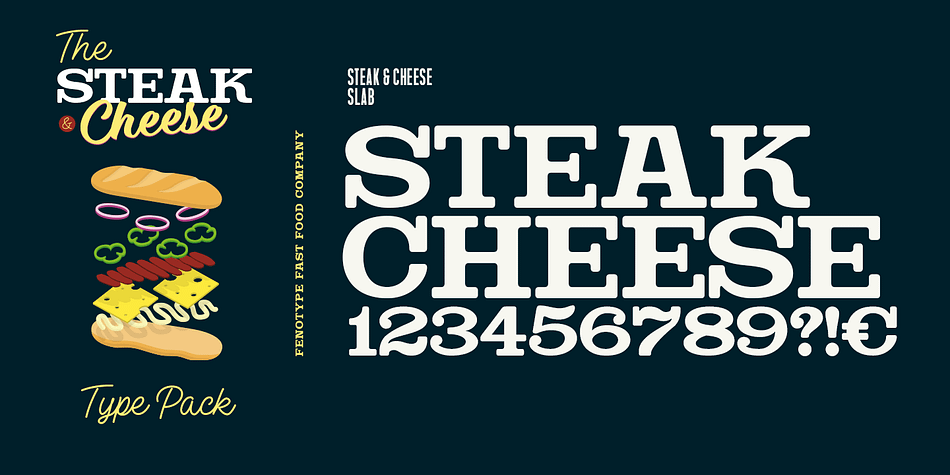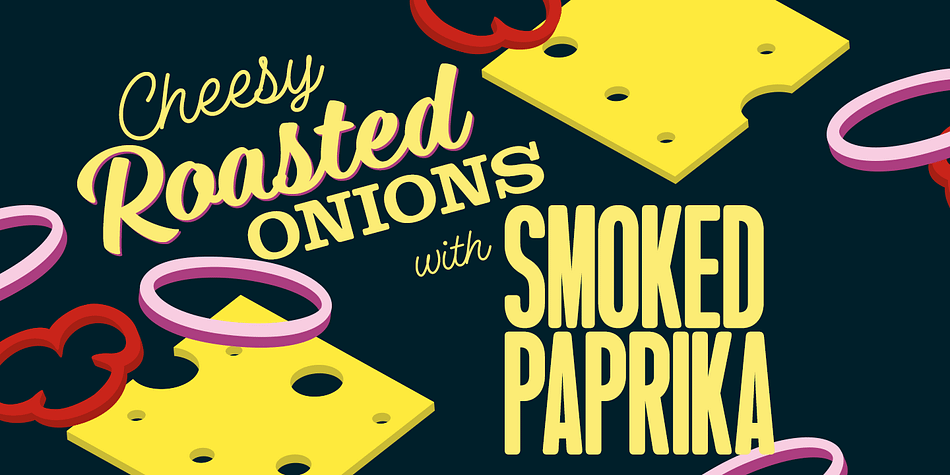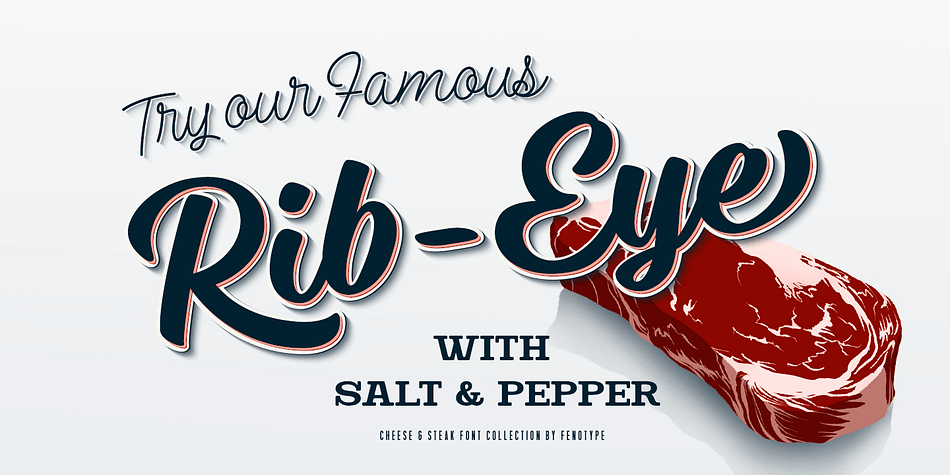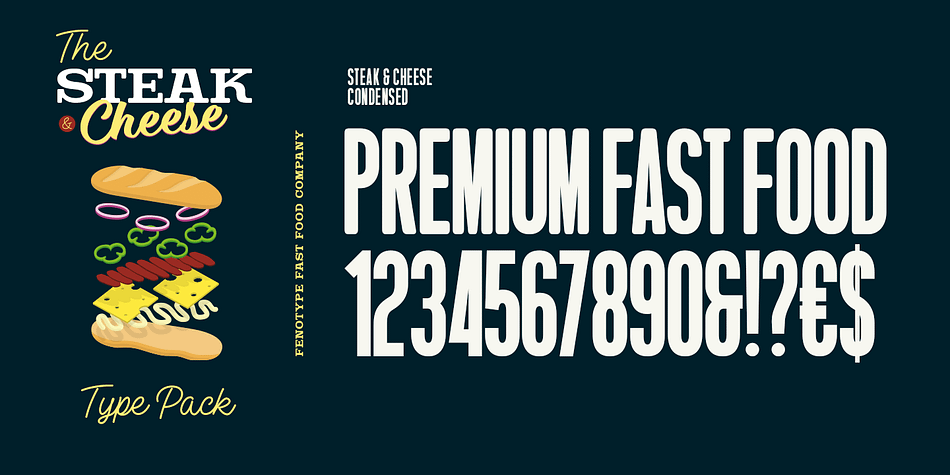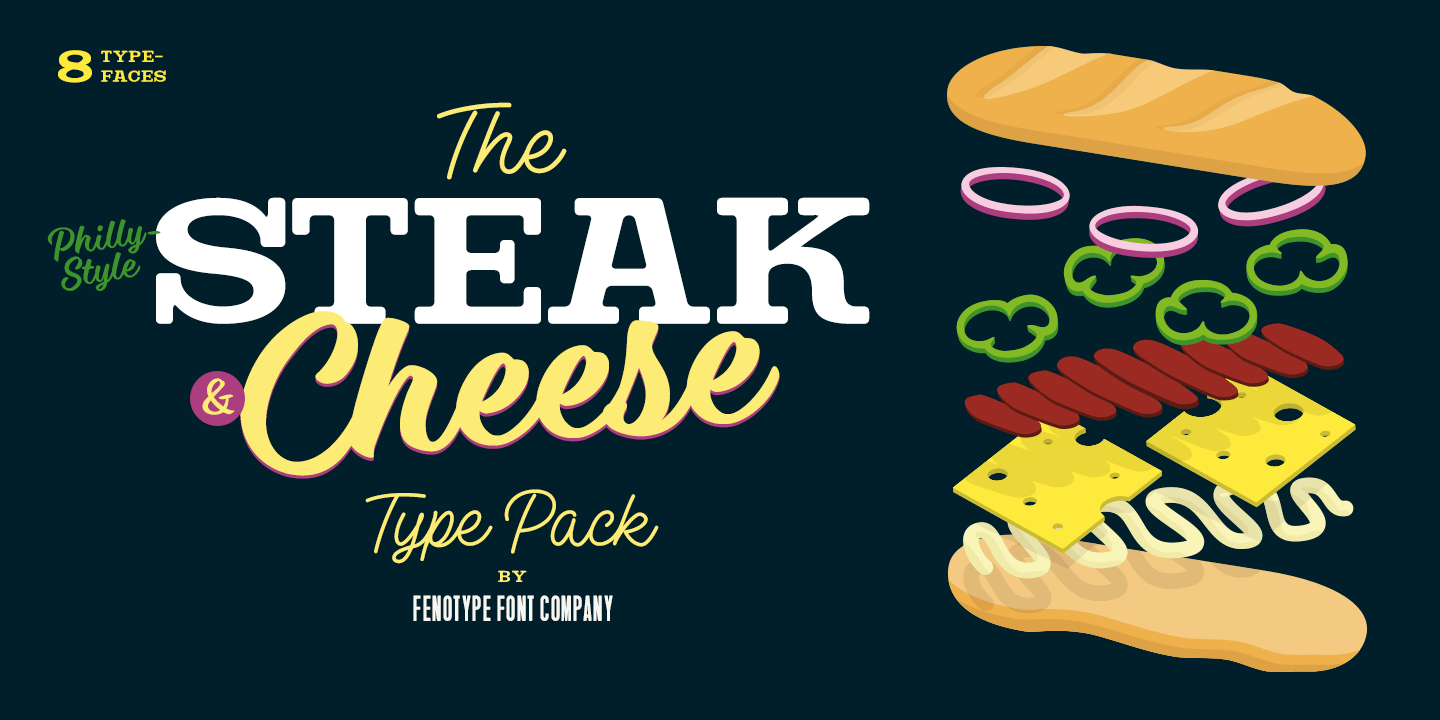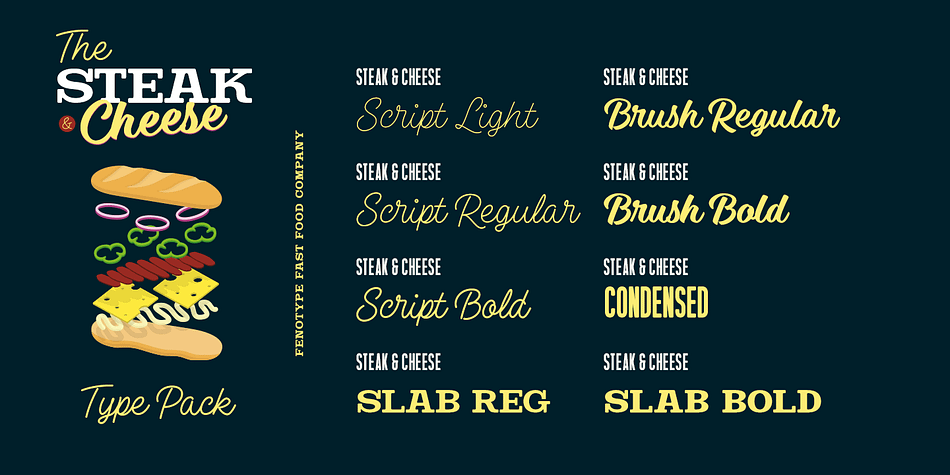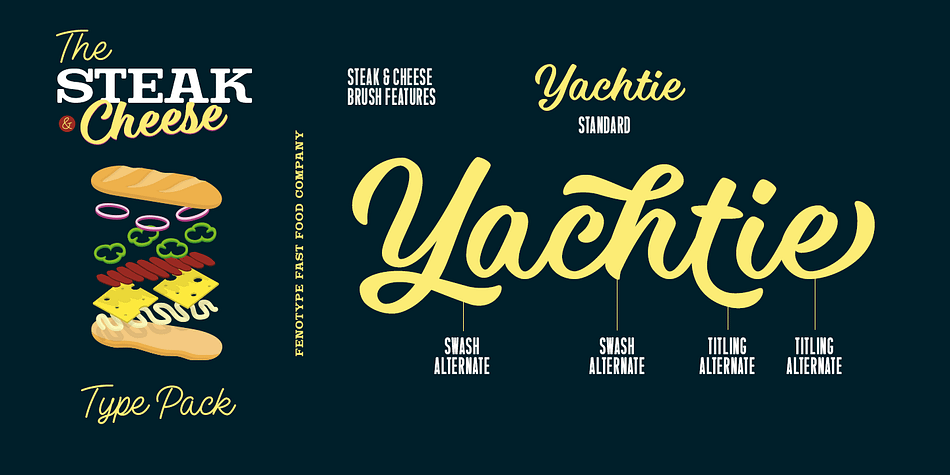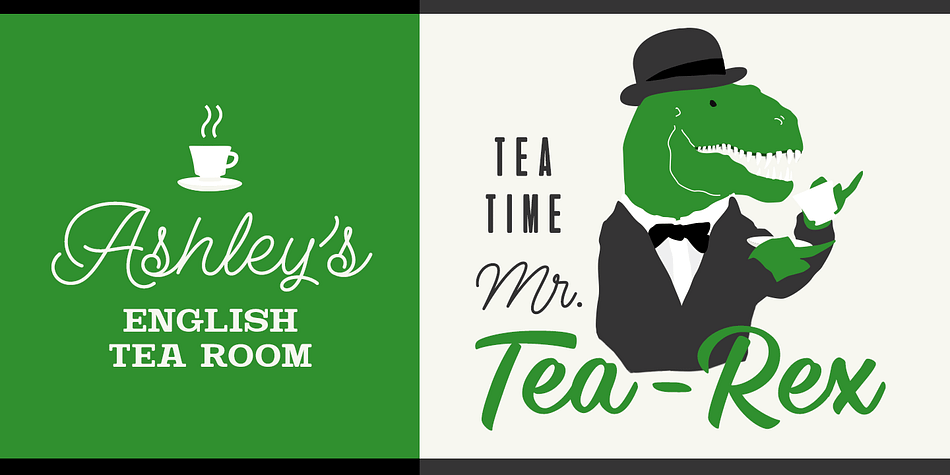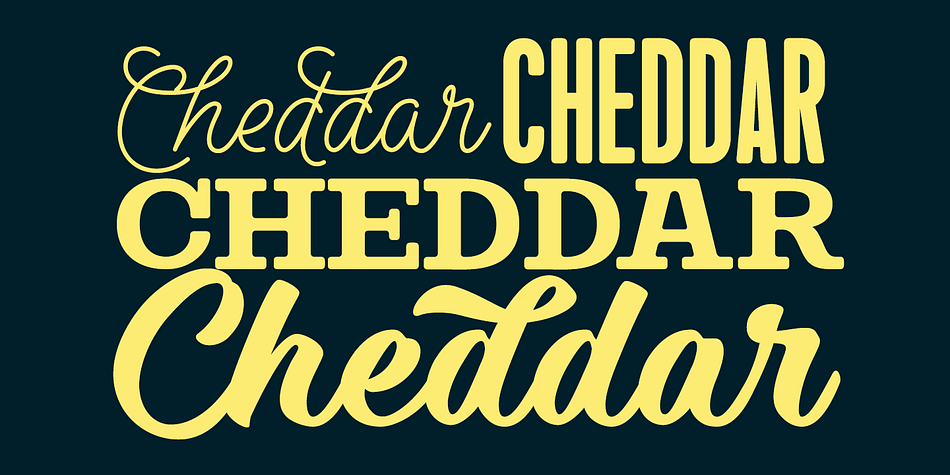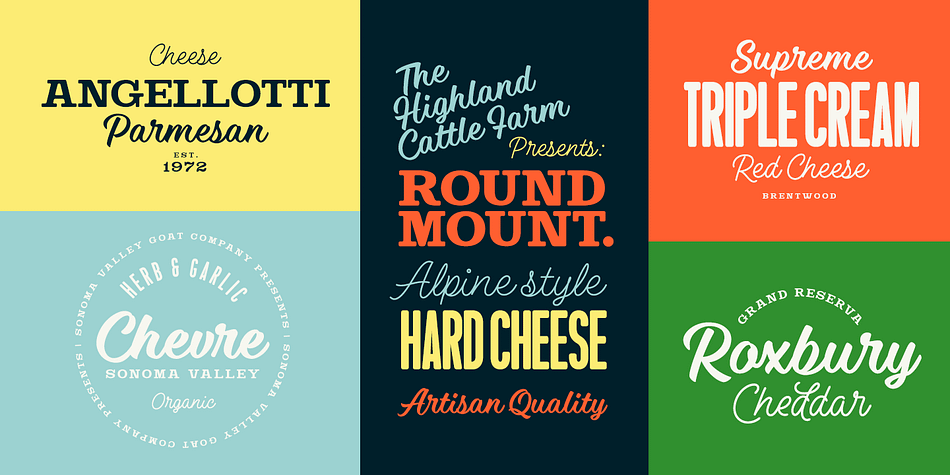
Designed by Emil Bertell, Steak And Cheese is a multiple classification font family. This typeface has eight styles and was published by Fenotype.
Steak and Cheese - a Savoury Font Collection
Packed with flavour, Steak and Cheese includes following:
• Brush - Two weights of a connected Brush Script with Contextual, Swash, Titling and Stylistic Alternates
• Pen - Three weights of a connected monoline Script with Contextual, Swash, Titling and Stylistic Alternates
• Slab - Two weights of a chunky Slab Serif with rounded corners
• Condensed - A bold and tight condensed Sans Serif with rounded corners.
Steak and Cheese fonts are designed to work together - in pairs or more. Steak and Cheese is great for branding, posters or any display use.